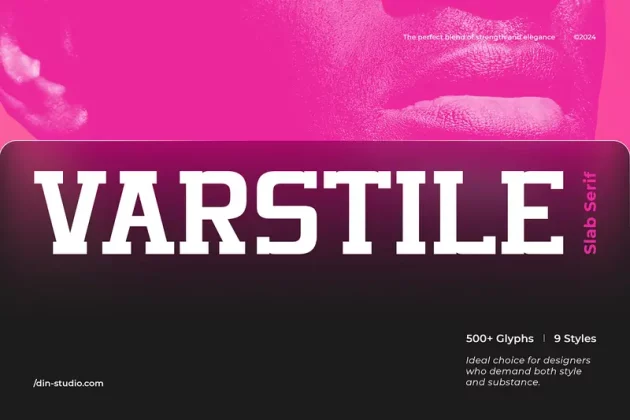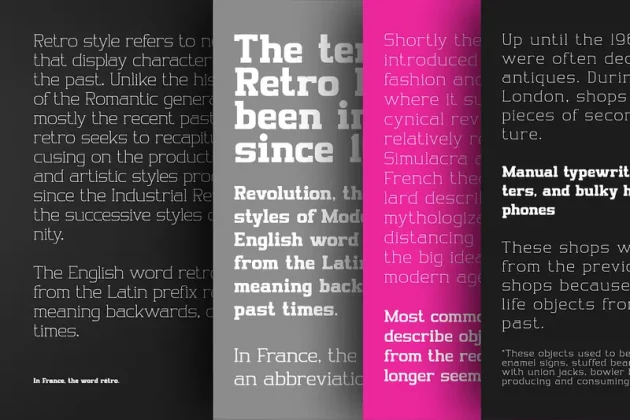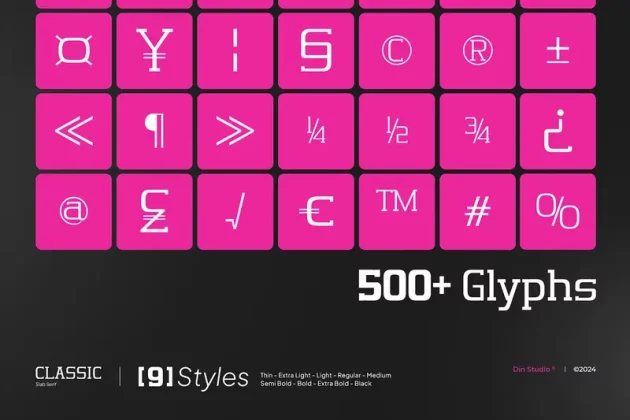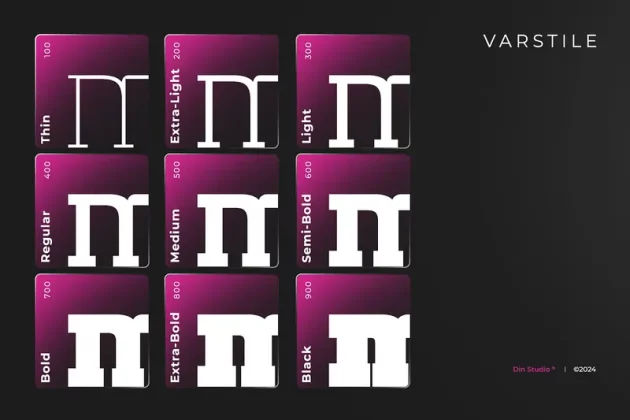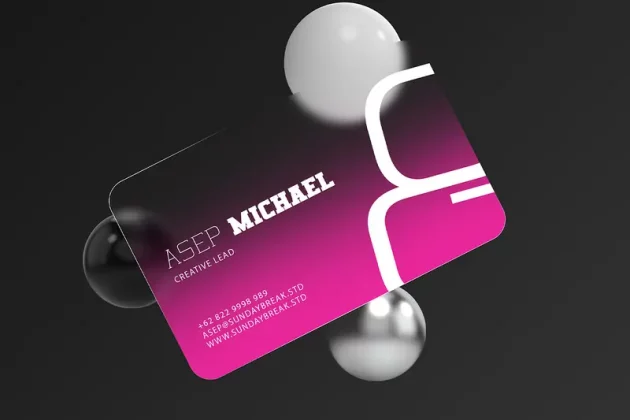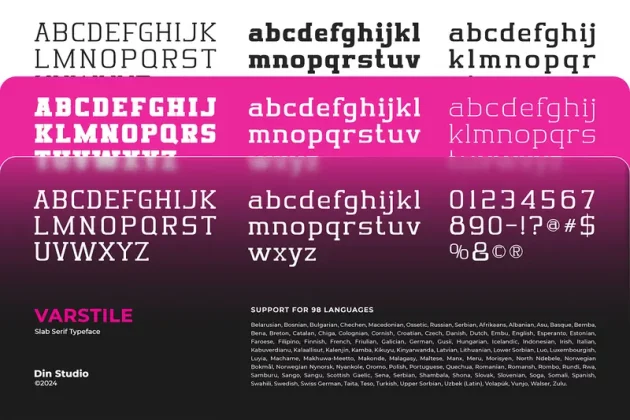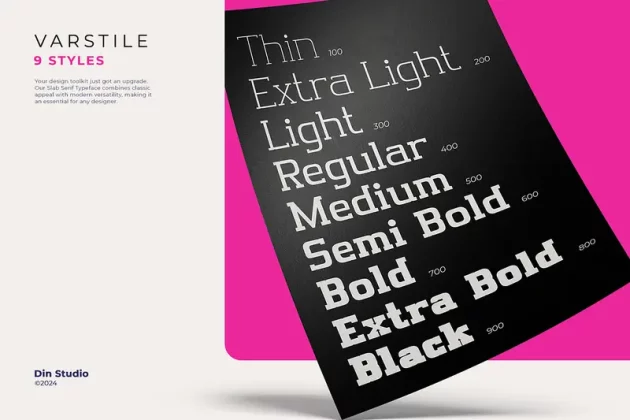
About Varstile Font
Introducing Varstile, a masterfully designed slab serif font family that effortlessly blends elegance and strength. With 9 distinct weights, Varstile offers unparalleled versatility, making it ideal for your design that requires a touch of sophistication and boldness. Its meticulously crafted characters radiate timeless charm. Varstile’s balanced proportions and commanding presence deliver unmatched visual appeal.
Varstile’s different weight fonts :
- Thin
- Extra Light
- Light
- Regular
- Medium
- Semi Bold
- Bold
- Extra Bold
- Black
- Multilingual Supports
- Numerals and Punctuations
Varstile fits in headlines, logos, posters, invitation, branding materials, packaging, print media, editorial layouts, and many more designs. Find out more ways to use this font by taking a look at the font preview.